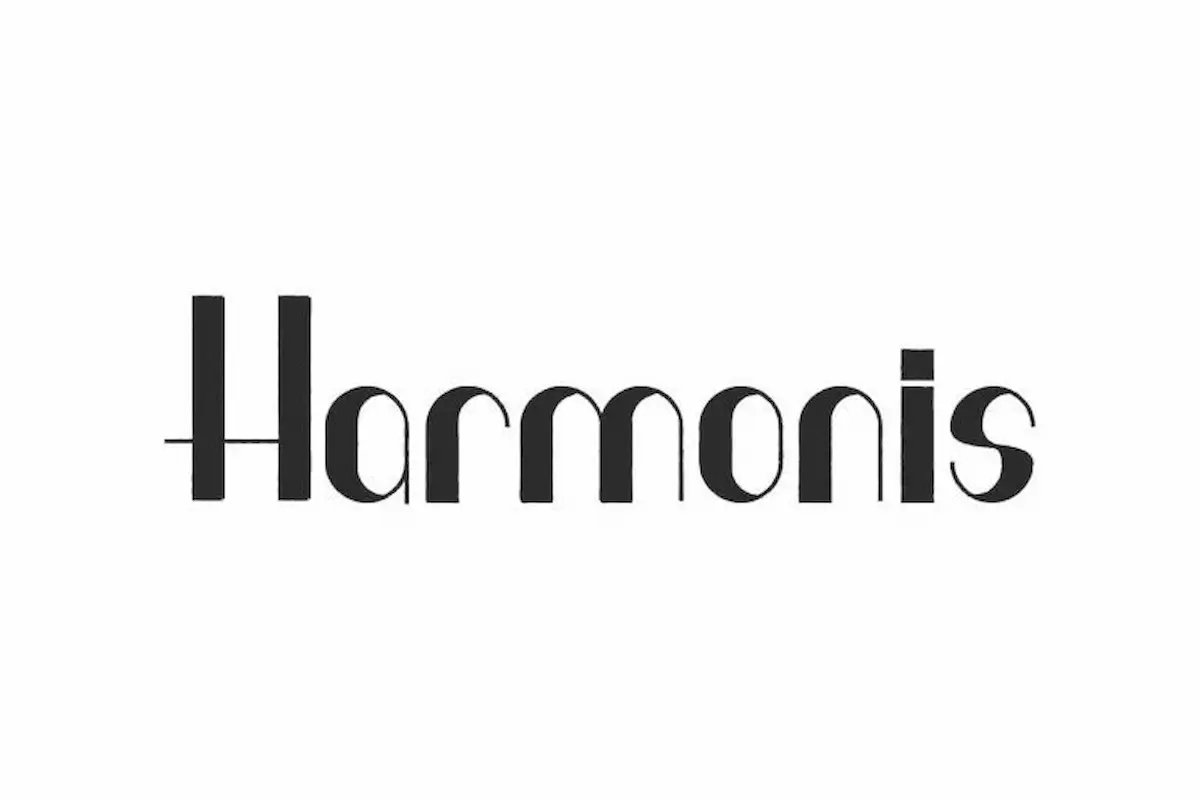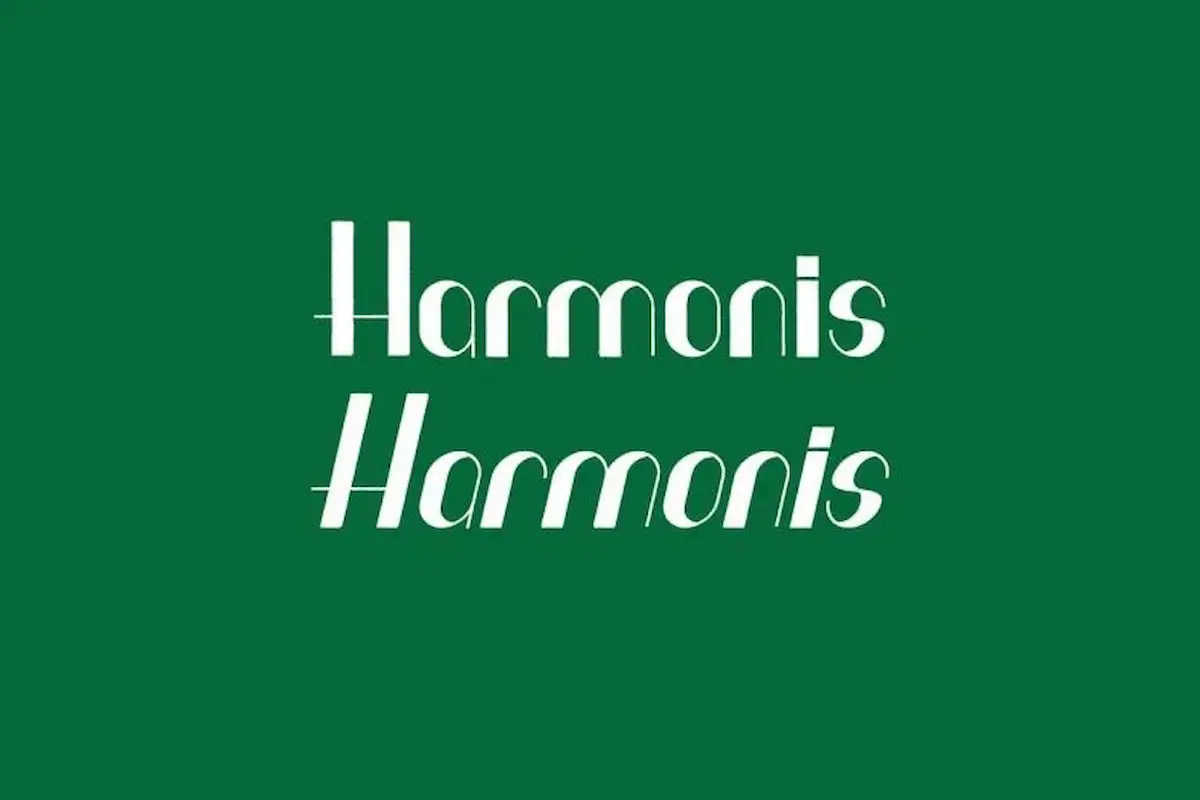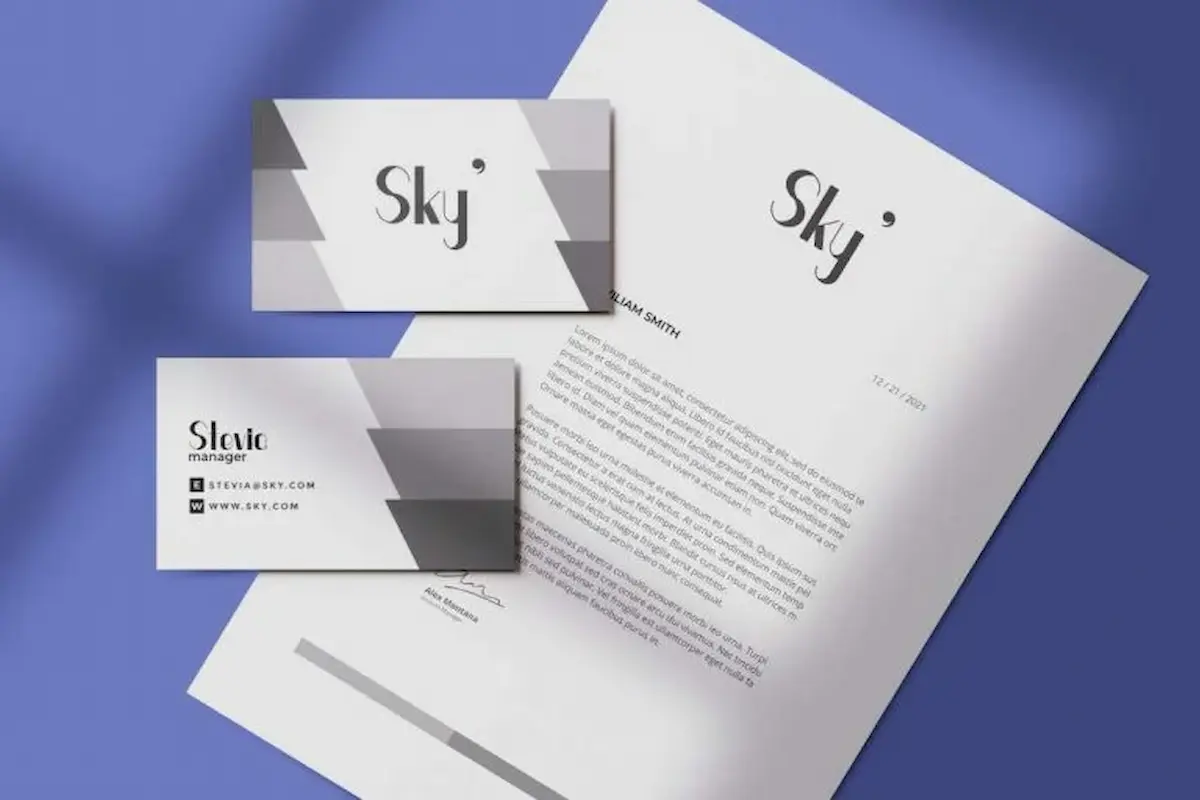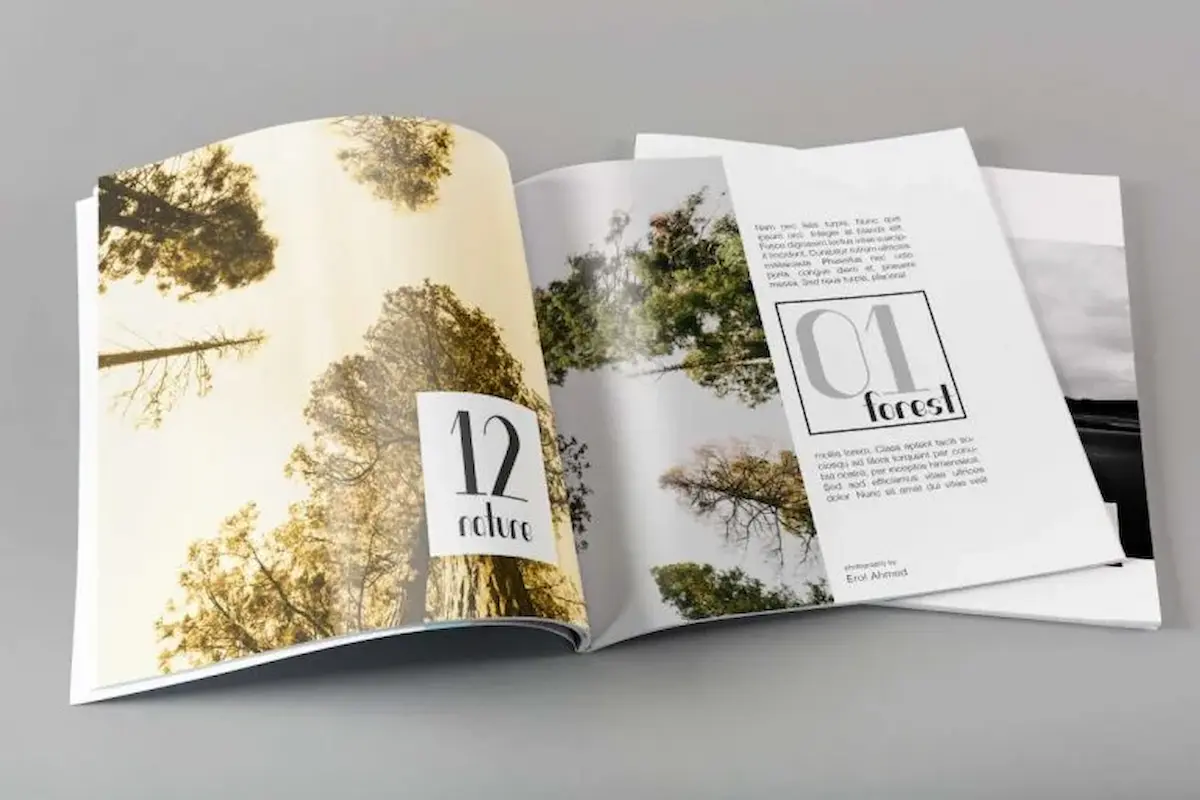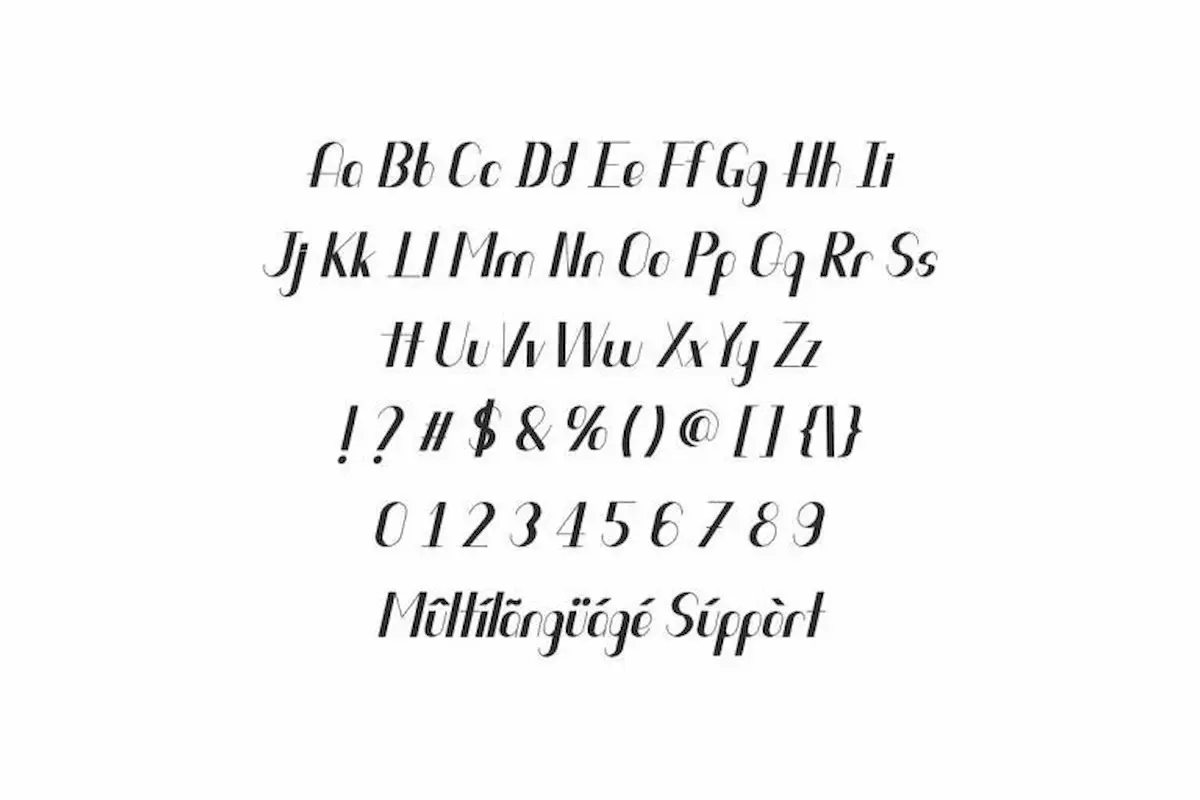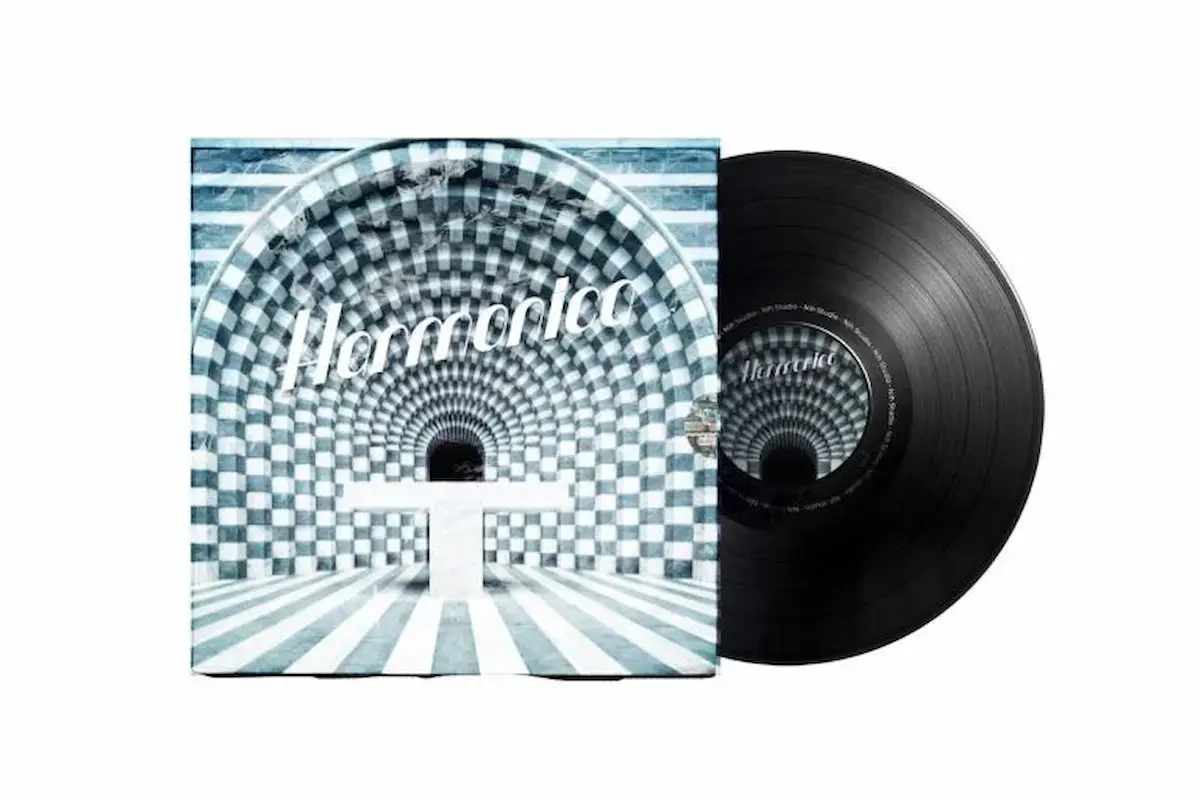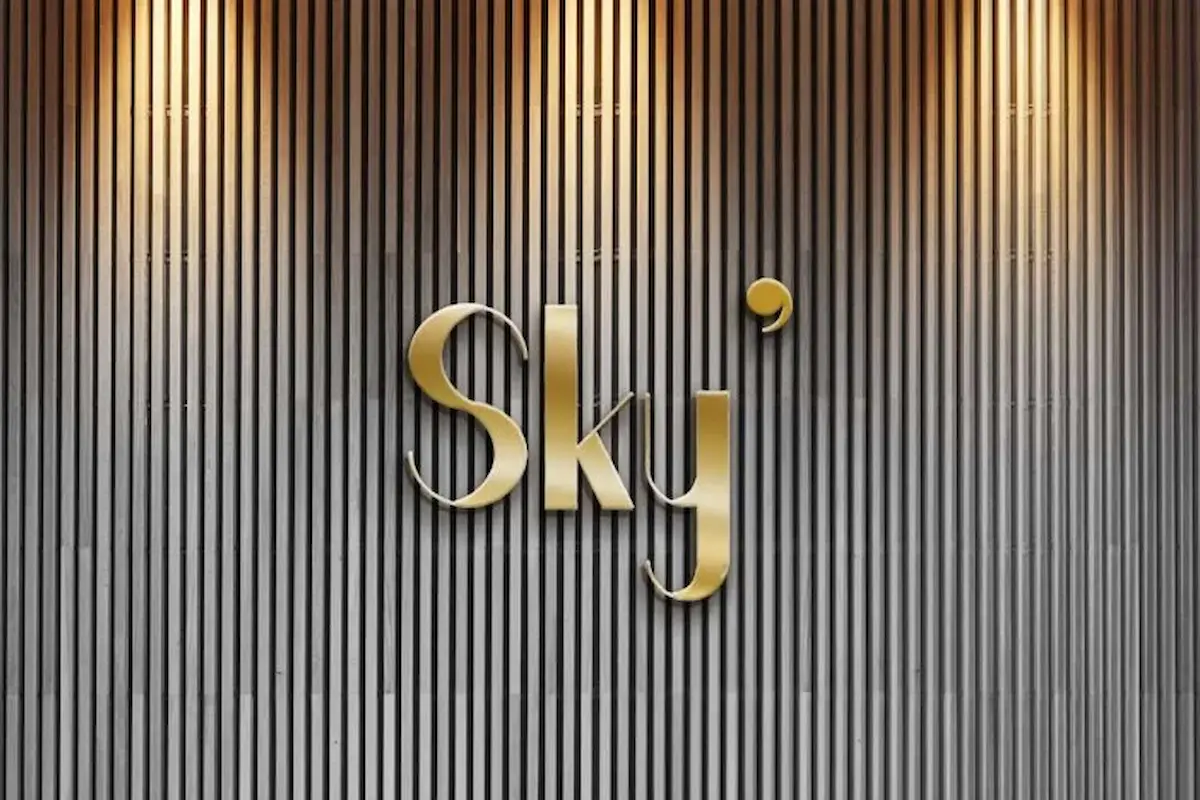
Harmonis Font is a modern sans serif font by NihStudio, made in 2021. Harmonis Font will be great for fashion, technology, magazine, futuristic or modern projects.
Harmonis Font will be great for any projects including : branding, logo, stationery, business card, signage, flyer, brochure etc. Harmonis Font comes with unique and exclusive letter style to make it standout and uniquely different.